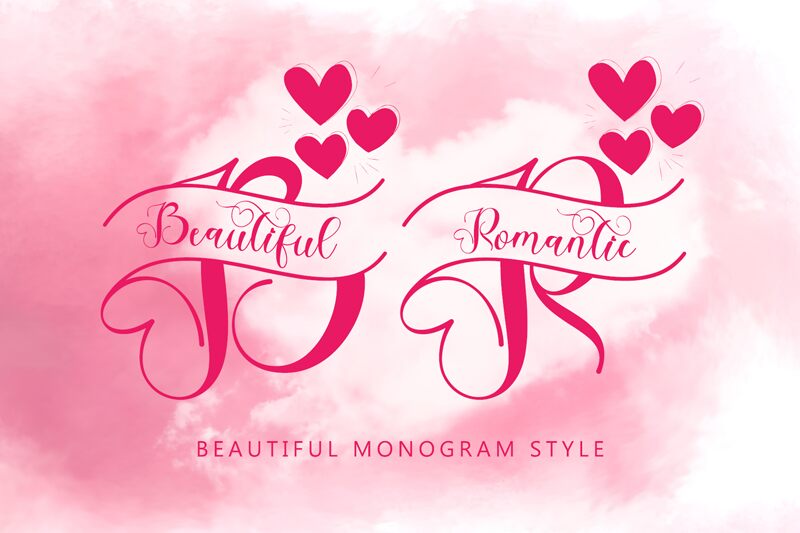
Beautiful Romantic Monogram font family is a free font family designed by Yoga Letter that combines elegance and modernity defined by fluid movement and enchanting letterforms. With swirling details and fascinating curves, this flowing font evokes a sense of grace and nostalgia, drawing inspiration from the classic calligraphic forms. The expressive and intricate shapes combine into a sophisticated look, great for romantic applications.
This highly decorative typeface is the best choice for all projects that need an ornate and graceful holiday or romantic feel. Use it in brand identities, logos, posters, wedding invitations, greeting cards, or even product packaging designs. The free font will also be suitable for headers, titles, and artistic social media design posts.